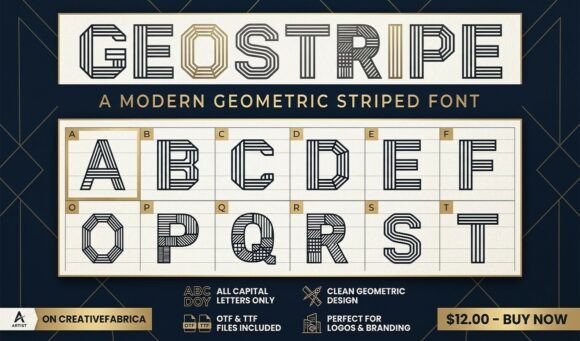
Geostripe: A Display Font That Builds Quiet Confidence
Last Tuesday, I sat down to refresh the cover layout for a seasonal recipe ebook—something warm and grounded, full of slow-cooked stews and late-summer preserves. The body text was already set in a soft, open serif—timeless, legible, generous with space. But the title? It kept feeling like it was whispering when it needed to settle, to hold still, to say something clear without shouting. That’s when I opened Geostripe.
Geostripe isn’t loud. It doesn’t rely on contrast or ornamentation to command attention. Instead, it draws you in through rhythm: parallel lines, shifting direction at precise angles, building each letter like a small architectural gesture. There’s a calm logic to its geometry—not cold or clinical, but considered, almost meditative. You sense the hand behind it, even though every stroke is ruled and intentional. It feels like a font designed not just to be seen, but to be trusted.
I used Geostripe for the ebook title—Rooted Seasonings—set large and centered over a muted linen background. No drop shadow. No outline. Just clean, confident letterforms. Instantly, the cover gained presence—not flashiness, but weight. A kind of quiet authority. Readers scrolling past on mobile paused longer. Print testers remarked how well it held up at 18pt on matte paper, with crisp edges and no visual bleed.
This is where Geostripe shines: as a display font that supports, rather than competes with, your content’s voice. It works beautifully for blog headers (especially lifestyle, wellness, or slow-living sites), chapter openers in coaching workbooks, section titles in printable planners, and newsletter graphics where clarity matters more than cuteness. I’ve also used it for pull quotes in a digital magazine feature—paired with a light-weight sans serif for attribution—and found it created just enough visual punctuation without overwhelming the flow.
It’s not meant for long paragraphs. Geostripe is a display typeface, first and foremost—designed for moments of emphasis, not endurance. Its linear construction gives it excellent screen readability at larger sizes, especially on retina displays, but it’s not built for dense body copy. That’s fine. In fact, that limitation is part of its strength. It invites thoughtful hierarchy: Geostripe for the headline, a warm serif for the story, a neutral sans for captions and navigation. That trio—display, serif, sans—creates breathing room, rhythm, and intentionality across formats.
For pairing, I’ve found success with understated serifs like Sorts Mill Goudy or EB Garamond, both of which soften Geostripe’s geometry with gentle curves and organic contrast. For digital-first projects, a restrained sans like Inter or Manrope keeps interfaces clean and accessible. What matters most is contrast in function, not just form: Geostripe sets the tone; the supporting type carries the conversation.
In practice, I used Geostripe across three distinct outputs this month: a wedding guide PDF (title page + section dividers), a printable weekly planner (cover + weekly header), and a creator newsletter banner (1200×630px). Each time, it performed consistently—crisp in PDF exports, stable in email clients when embedded as SVG fallbacks, and elegant in print layouts with tight margins. The included weights—Light, Regular, Bold—gave me flexibility without clutter. I appreciated the subtle alternates for ‘a’, ‘g’, and ‘t’, which added nuance without demanding attention.
What surprised me most wasn’t how bold Geostripe looked—but how calm it felt. So many geometric display fonts lean into sharpness or futurism. Geostripe leans into balance. Its angles aren’t aggressive; they’re resolved. Its spacing isn’t tight or airy—it’s just right. It doesn’t try to be everything. It simply does one thing exceptionally well: give your most important words a grounded, graceful presence.
That’s why it’s now my go-to for any moment where tone matters more than trend—when I want a title to feel like a promise kept, not a claim shouted. Whether it’s the cover of a mindfulness course PDF, the header of a sustainable living blog, or the opening line of a printed workshop guide, Geostripe brings a kind of editorial steadiness. Not flashy. Not fussy. Just quietly, unmistakably sure of itself.
If you’re choosing a display font not just for impact, but for integrity—if you value clarity over clutter, rhythm over repetition, and presence over performance—Geostripe is worth the pause. It doesn’t rush the reader. It invites them in, then steps back just enough to let the words breathe.